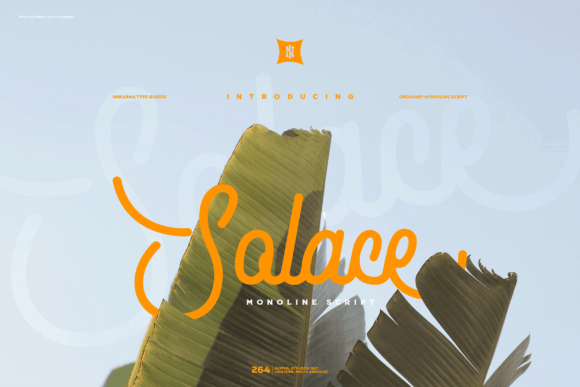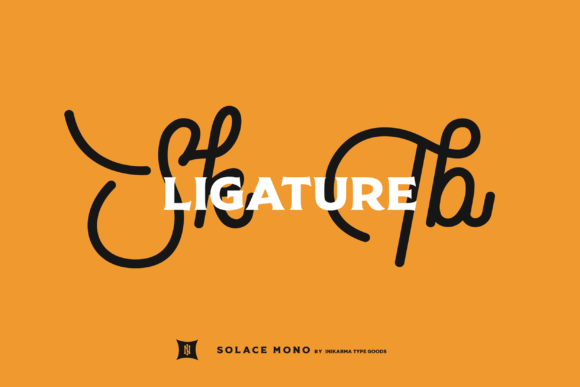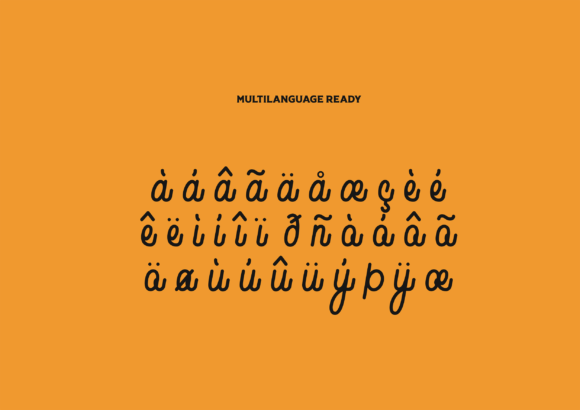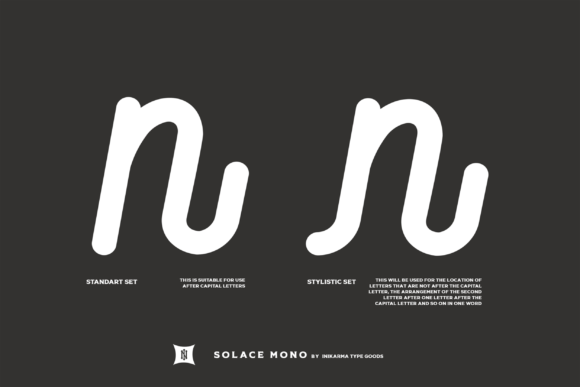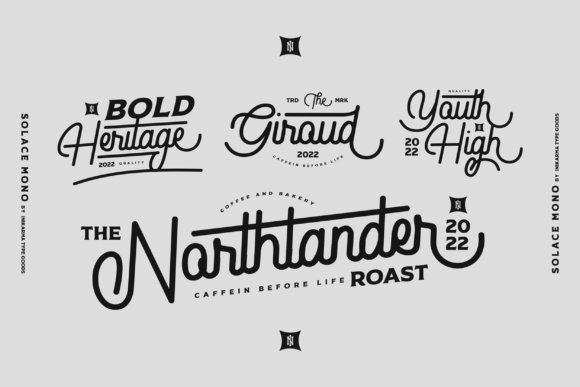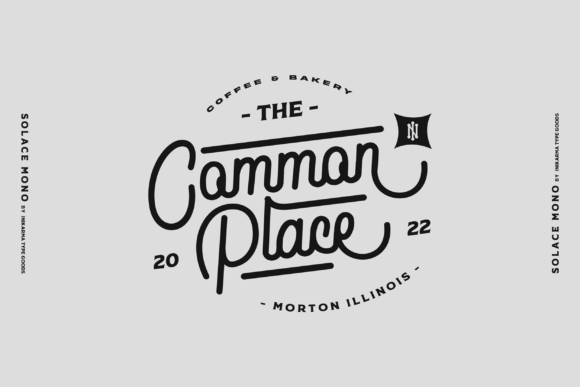
About Solace Font
Introducing Solace, an ordinary monoline script font designed for creating logos or titles that make a bold statement with just a few words. This font is versatile and perfect for experimentation, featuring stylistic sets and ligatures that provide flexibility and diverse design possibilities. Solace is PUA encoded, allowing easy access to all glyphs and swashes for a seamless creative experience.
The distinctive feature of Solace lies in its monoline script style, providing a clean and contemporary look that is ideal for creating impactful logos and titles. Whether used in digital designs or print materials, this font is crafted to enhance the overall visual appeal.
For logos, Solace offers a straightforward yet stylish option. The font’s monoline script lends a modern and professional touch to your brand identity, making it stand out with simplicity and elegance.
Solace is designed for experimentation, featuring stylistic sets and ligatures that allow you to explore various design possibilities. This flexibility ensures that you can achieve diverse and appealing results in your creative projects.
In conclusion, Solace is an ordinary monoline script font perfect for logos, titles, and experimental designs. Choose Solace to infuse your creative projects with simplicity, versatility, and ease of use, creating visually appealing and impactful outcomes across a variety of design applications.